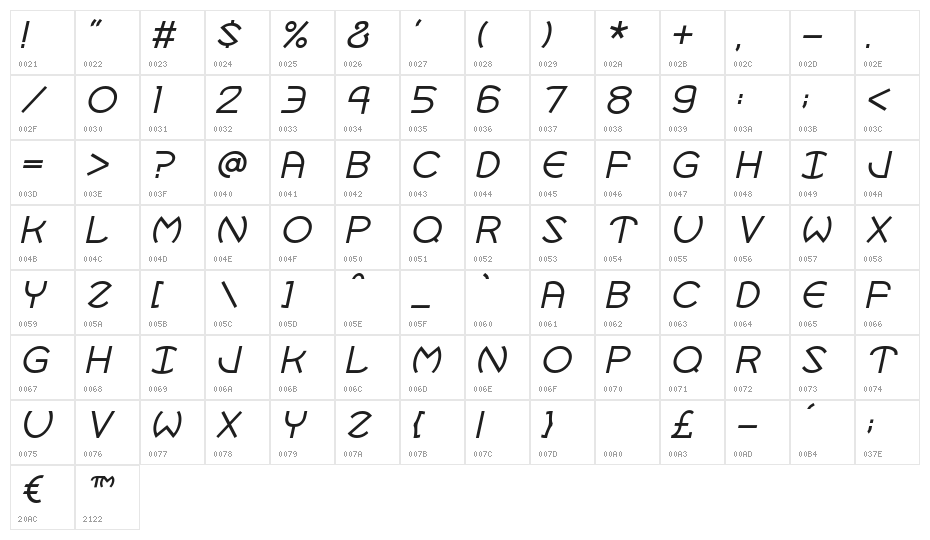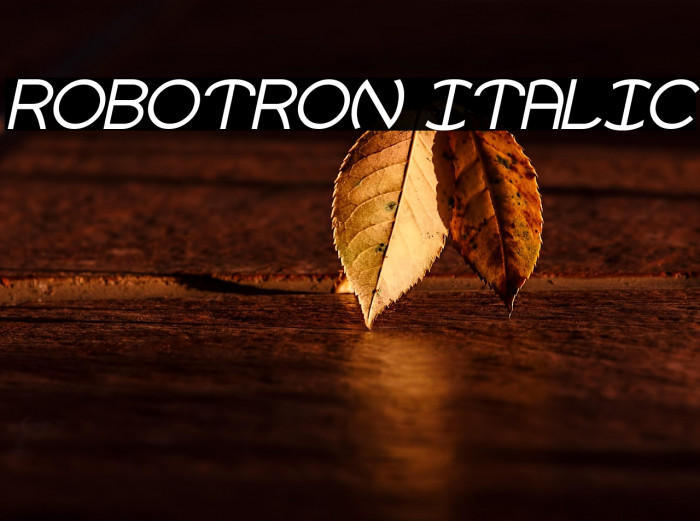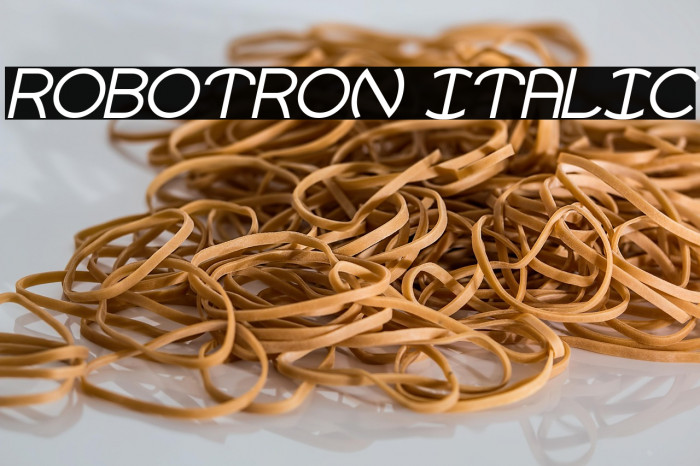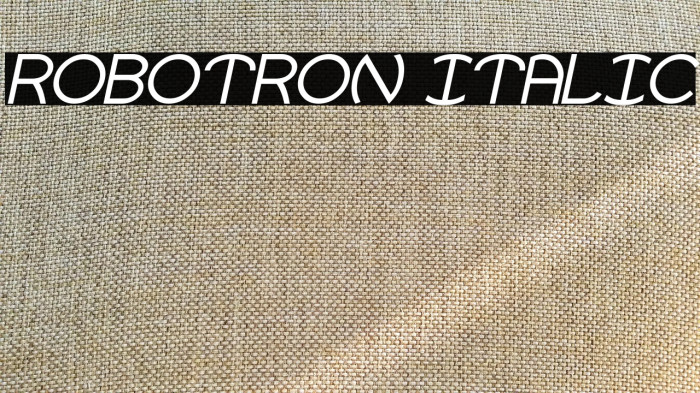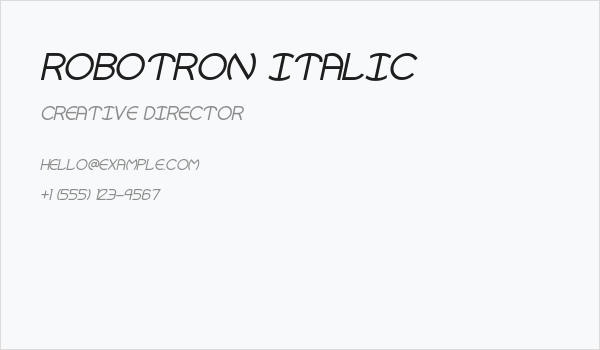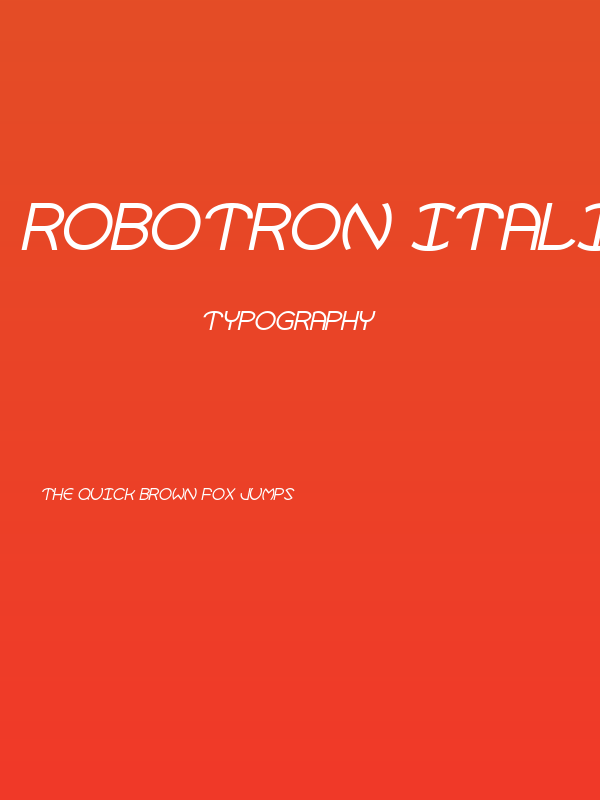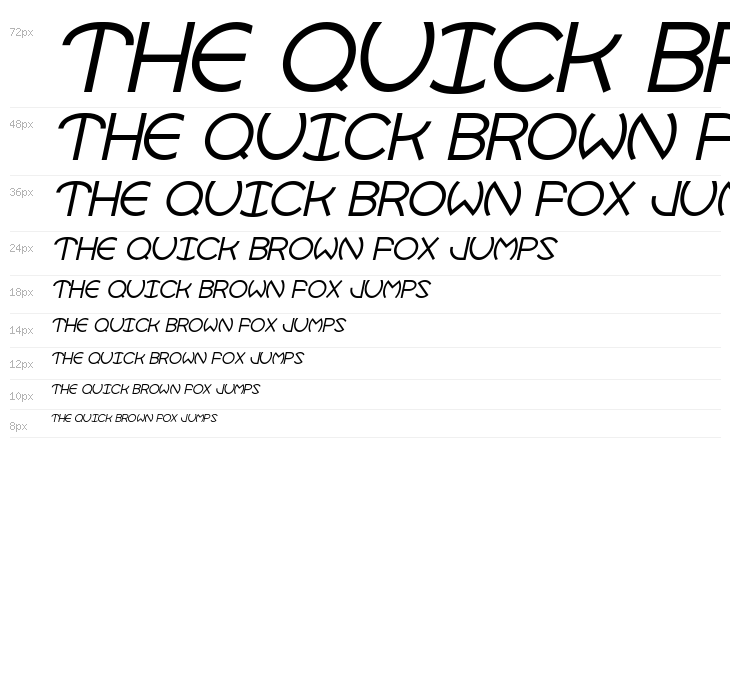
Robotron Italic Font
Robotron Italic Description
This font features a futuristic and dynamic design, characterized by its italicized and forward-leaning style. The letters are sleek and angular, with a consistent slant that gives a sense of motion and speed. The strokes are uniform in thickness, providing a clean and modern appearance. The characters are well-spaced, ensuring readability while maintaining a compact look. This font includes a full set of uppercase and lowercase letters, numbers, and a variety of special characters, making it versatile for various design needs.